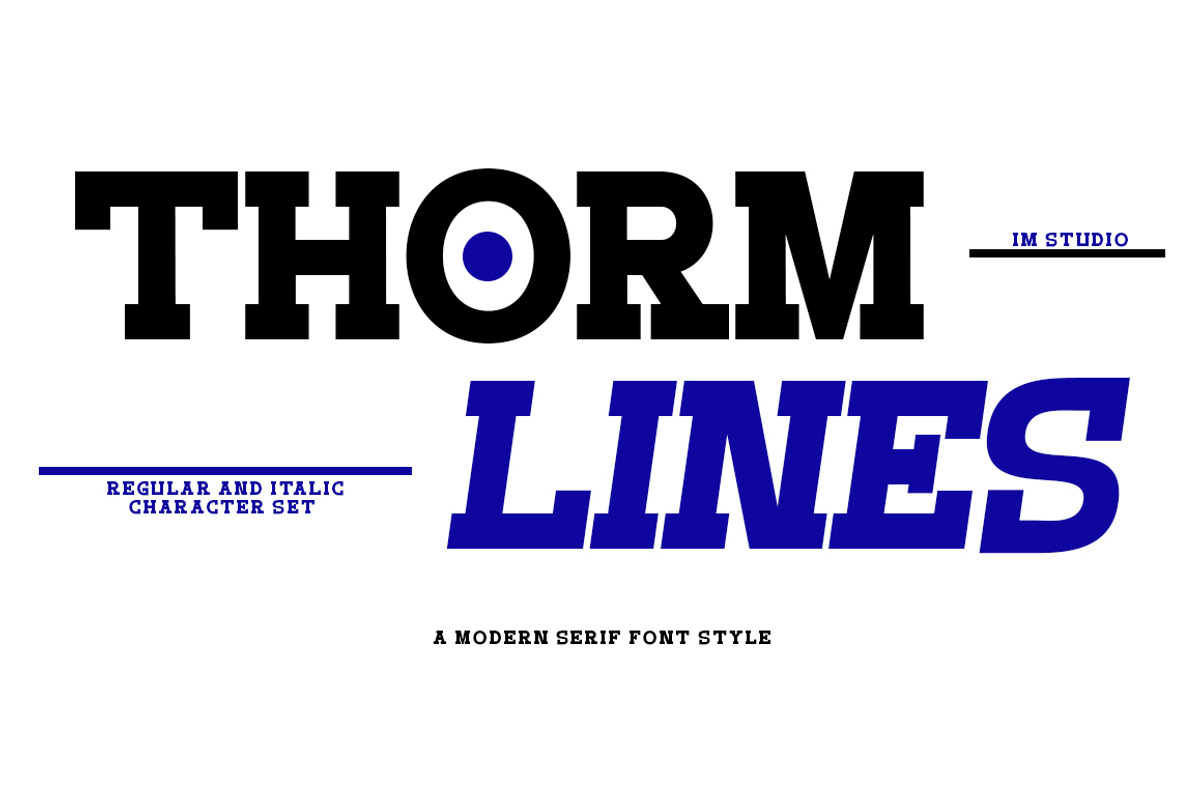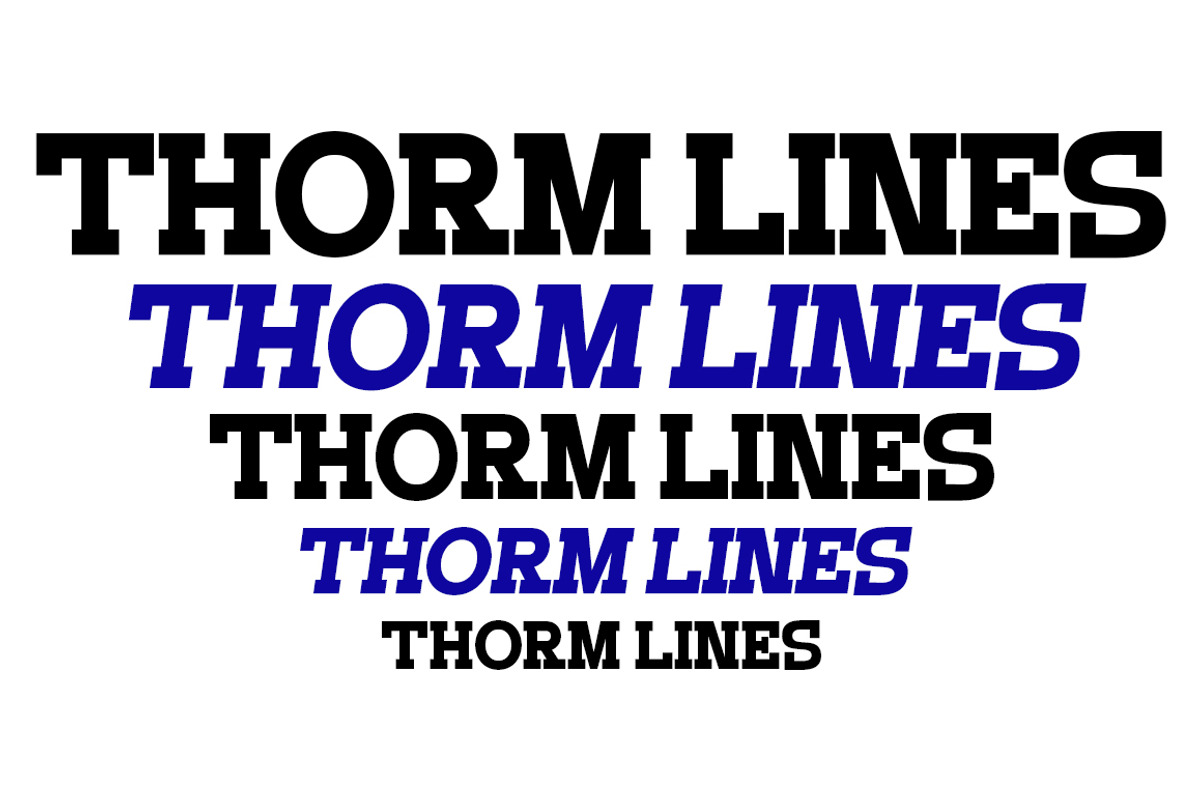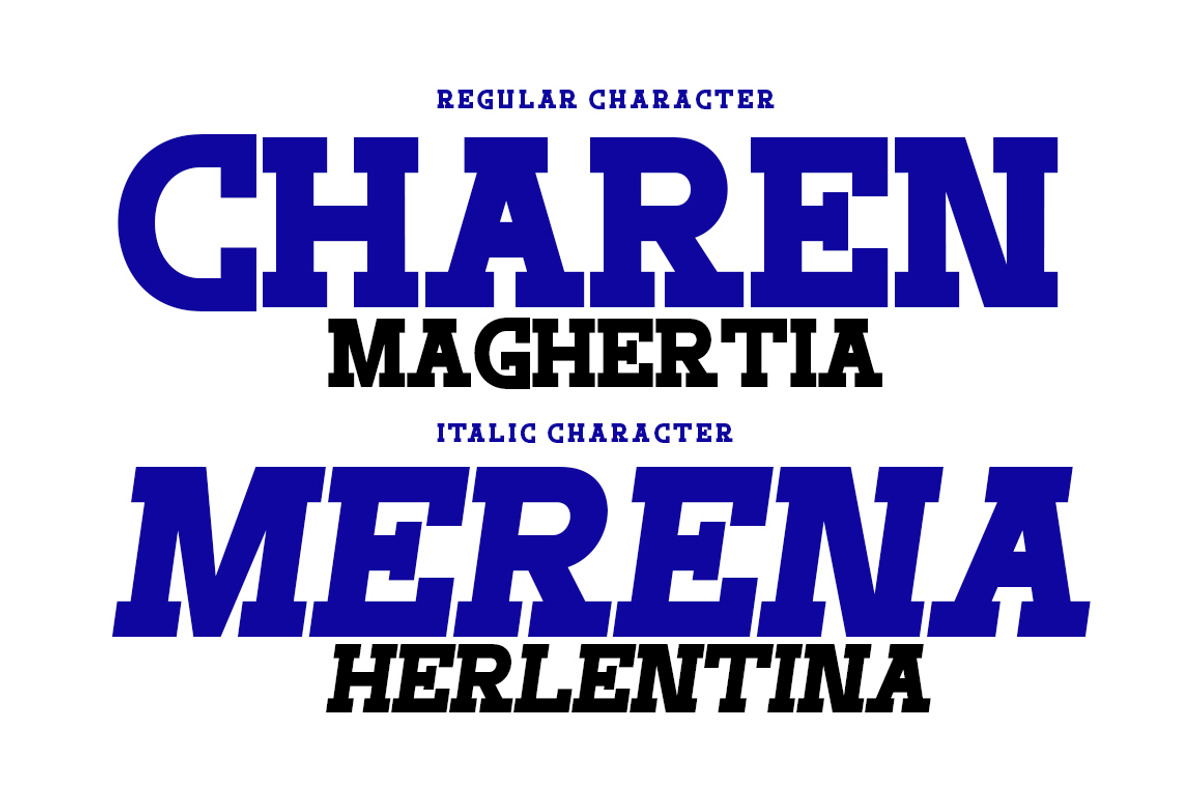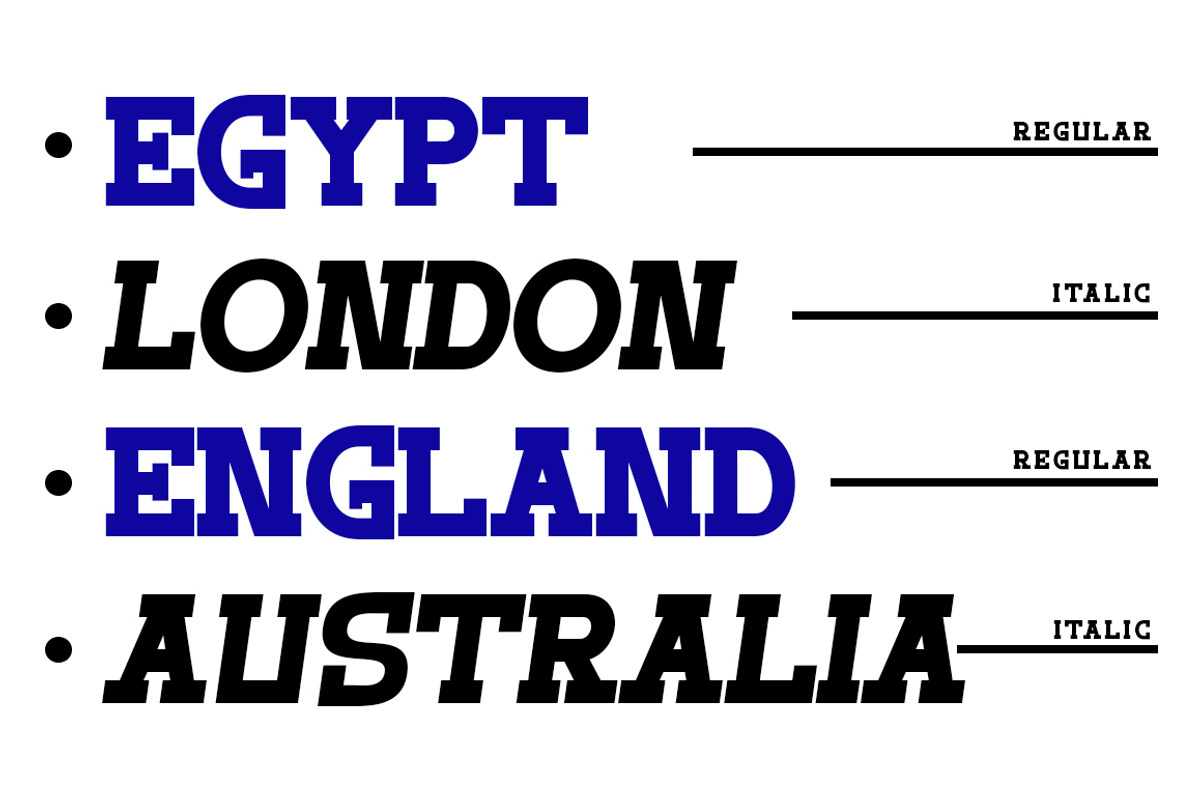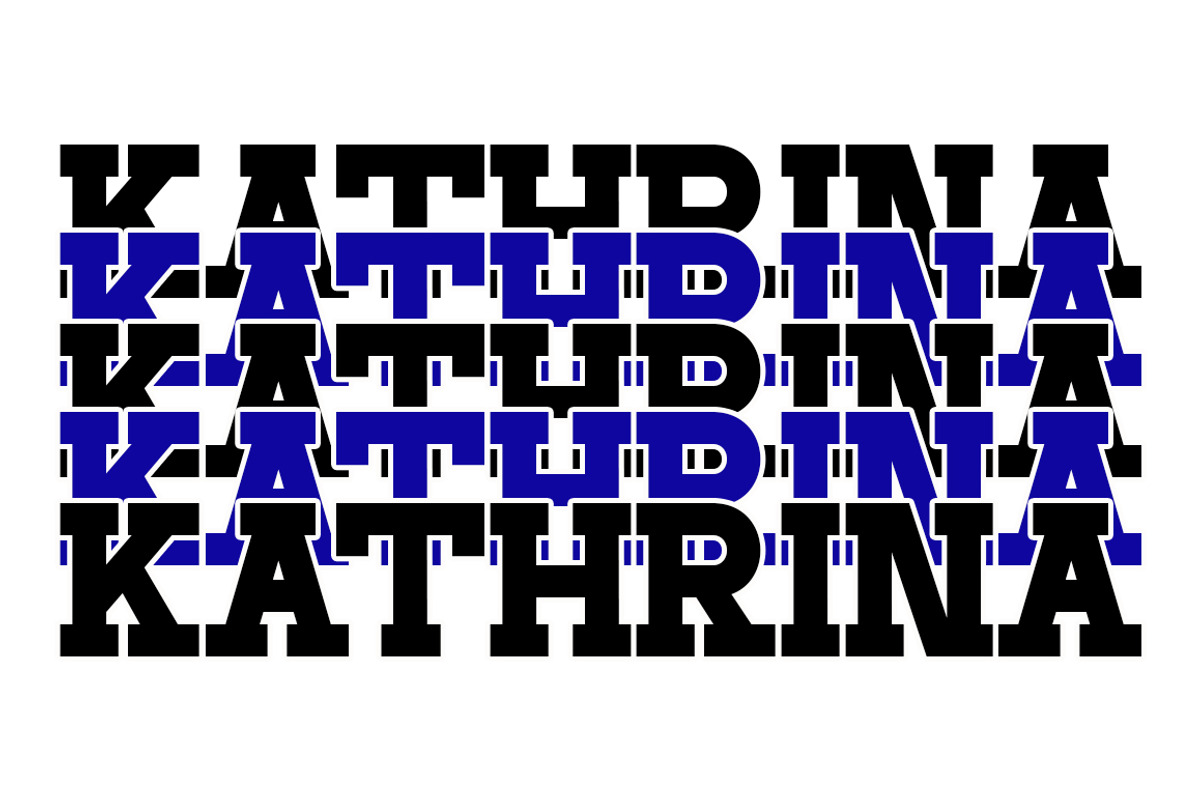
Thorm Lines
Thorm Lines is an elegant and charming typeface that combines classic beauty with a modern twist. Its design features gentle curves and graceful letterforms, creating a harmonious and captivating visual flow. I have enhanced Thorm Lines with a variety of carefully designed ligatures and alternate characters, giving it even more ingenuity and creativity in its use. These features add an artistic and luxurious touch to any project, making it a perfect choice for branding, wedding invitations, and editorial layouts. With its timeless charm and perfect balance of modern and vintage details, Thorm Lines is an ideal choice for those looking for a typeface with character and style.